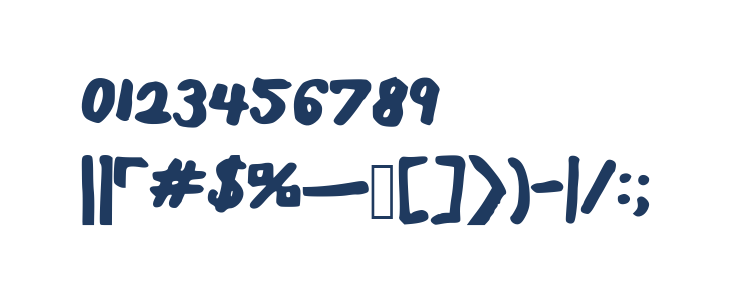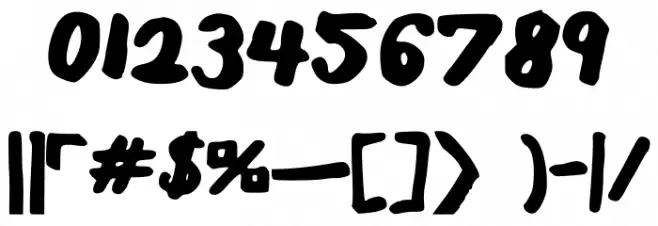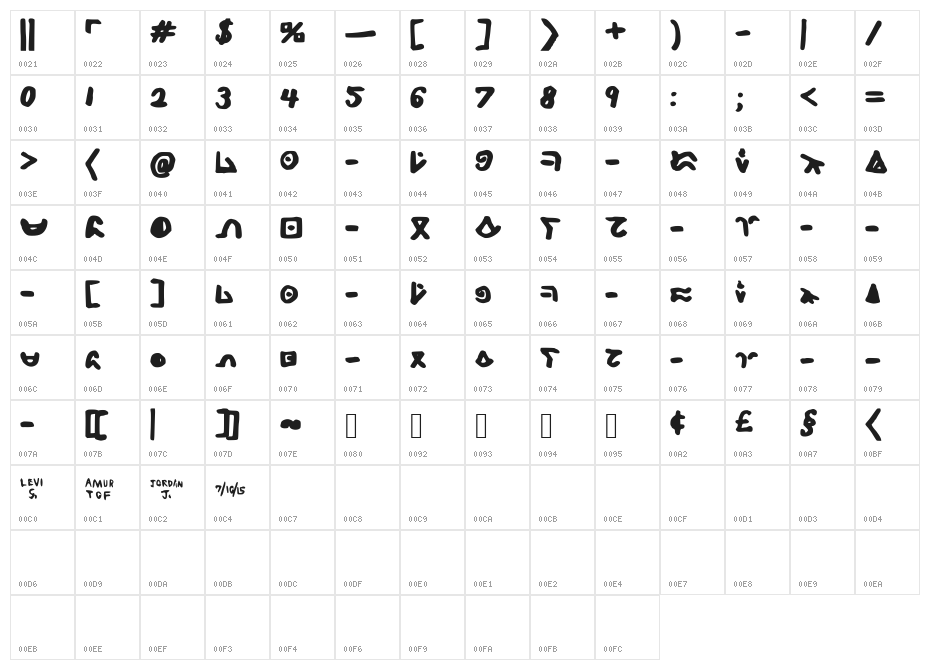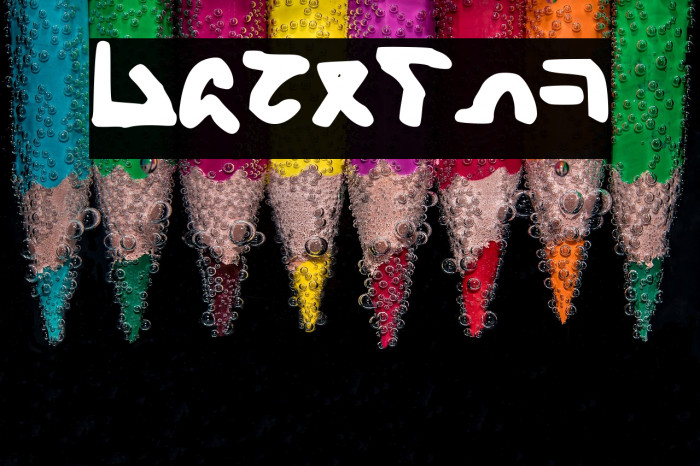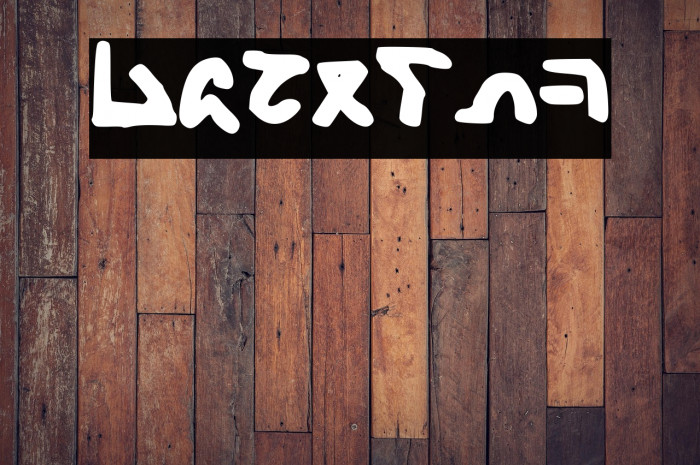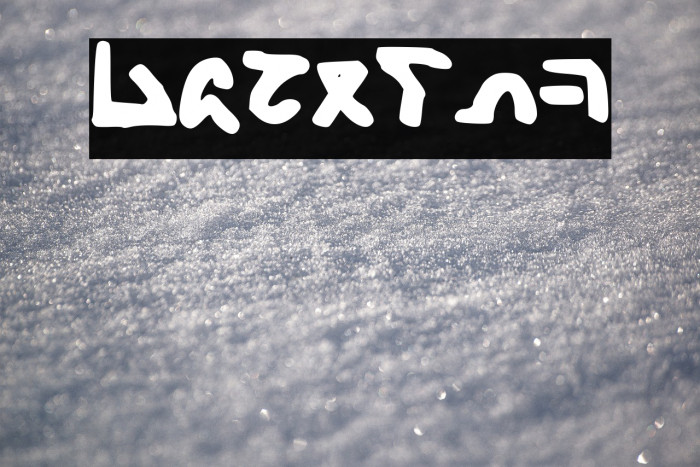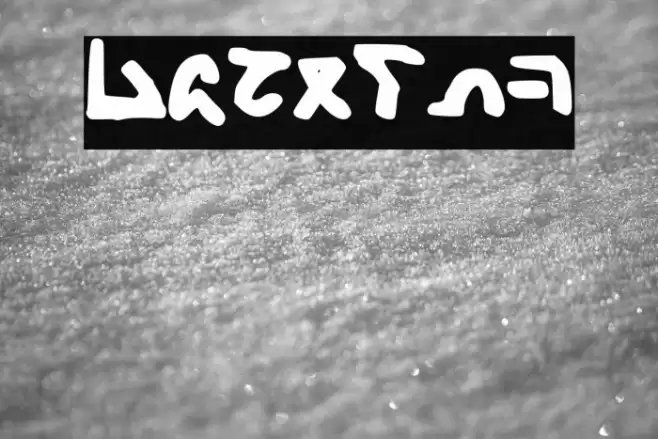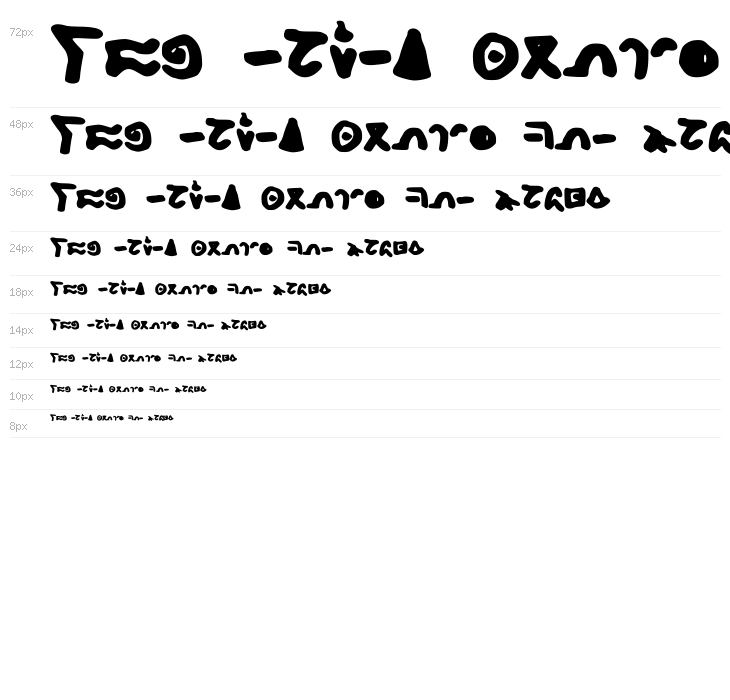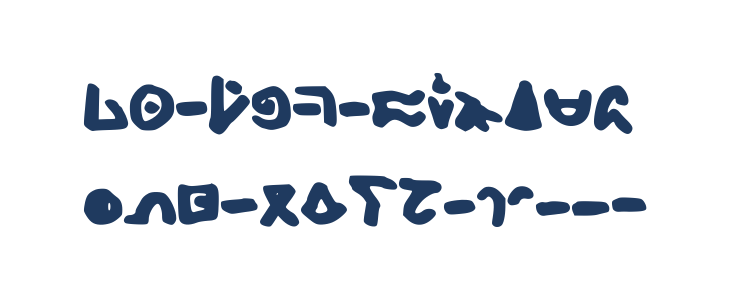
Amurtof Font
Amurtof Description
This font features a highly stylized and abstract design, reminiscent of ancient scripts or symbolic writing. The characters are bold and thick, with a unique, almost tribal aesthetic. Each letter and number is crafted with a sense of mystery and artistic flair, making it stand out as a decorative choice. The strokes are uneven, adding to the organic and hand-drawn feel of the font. This style is not suitable for body text but excels in creating a distinctive visual impact.
| Use Case | Logos, Posters, Artistic projects |
| Proposed Projects | Ideal for artistic projects, logos, posters, or any design requiring a unique and mysterious touch. |